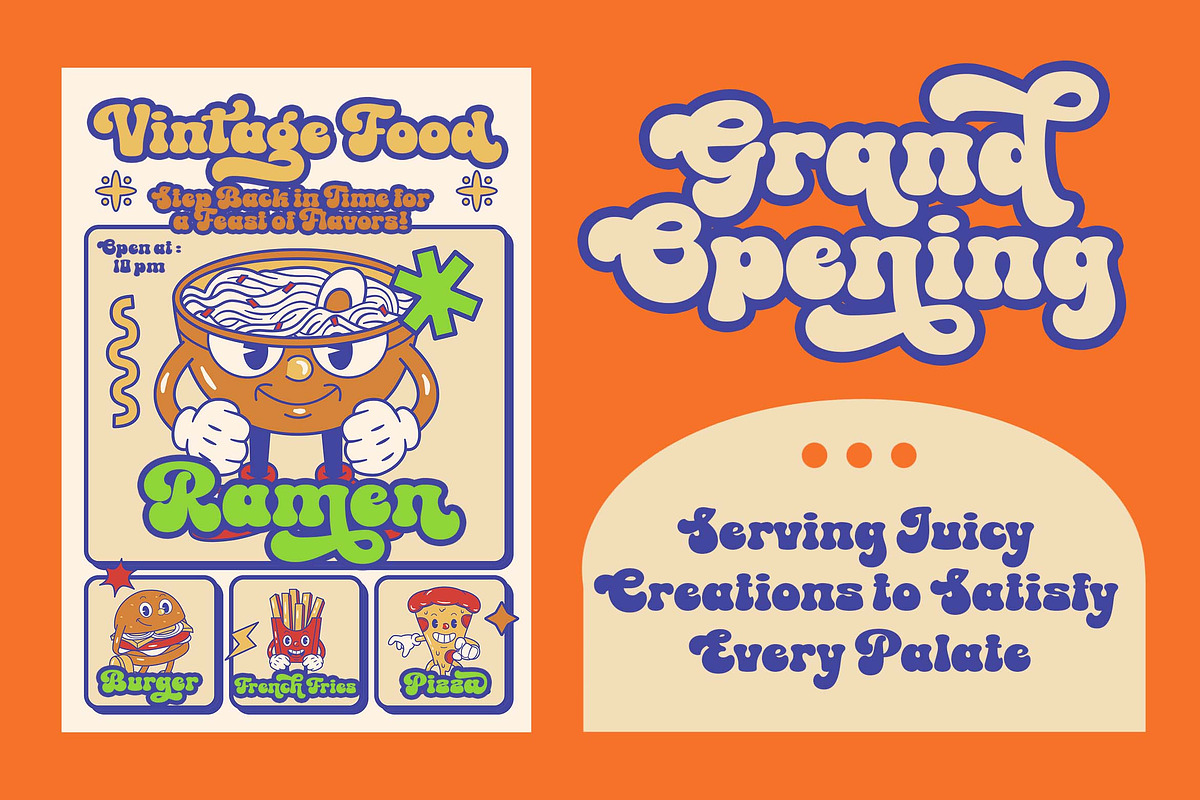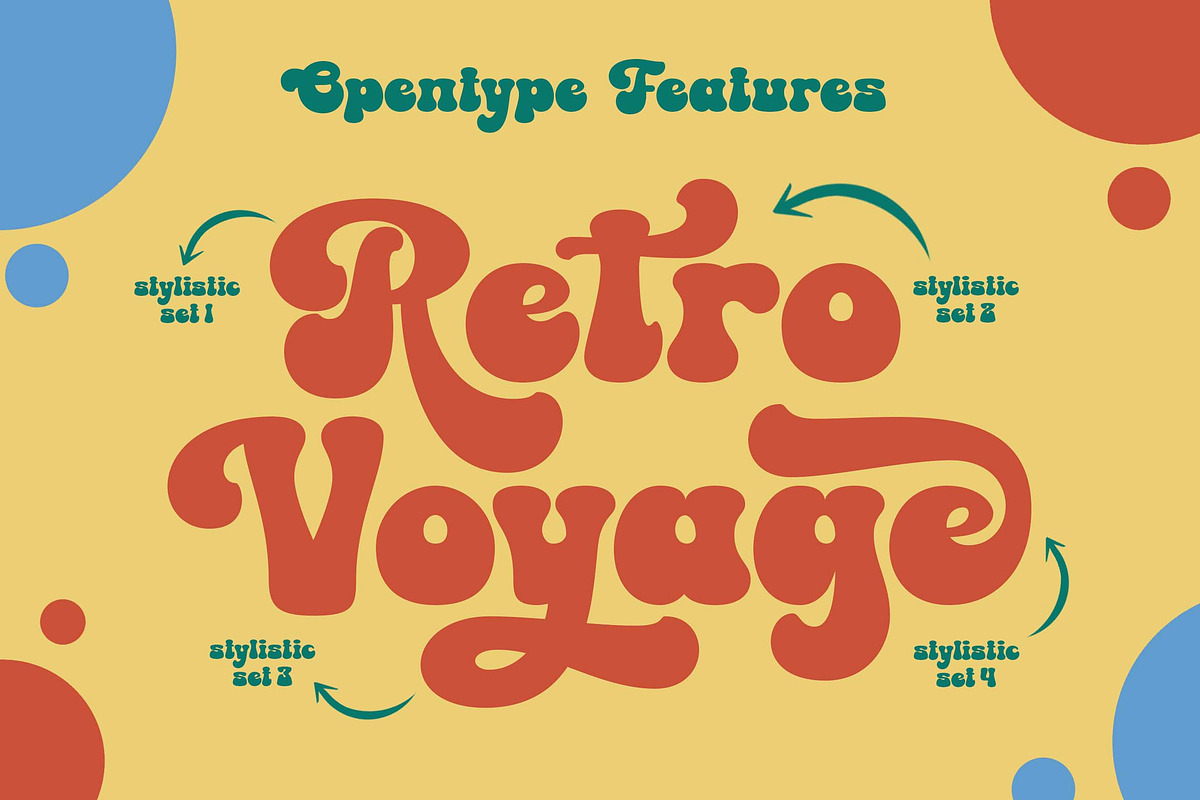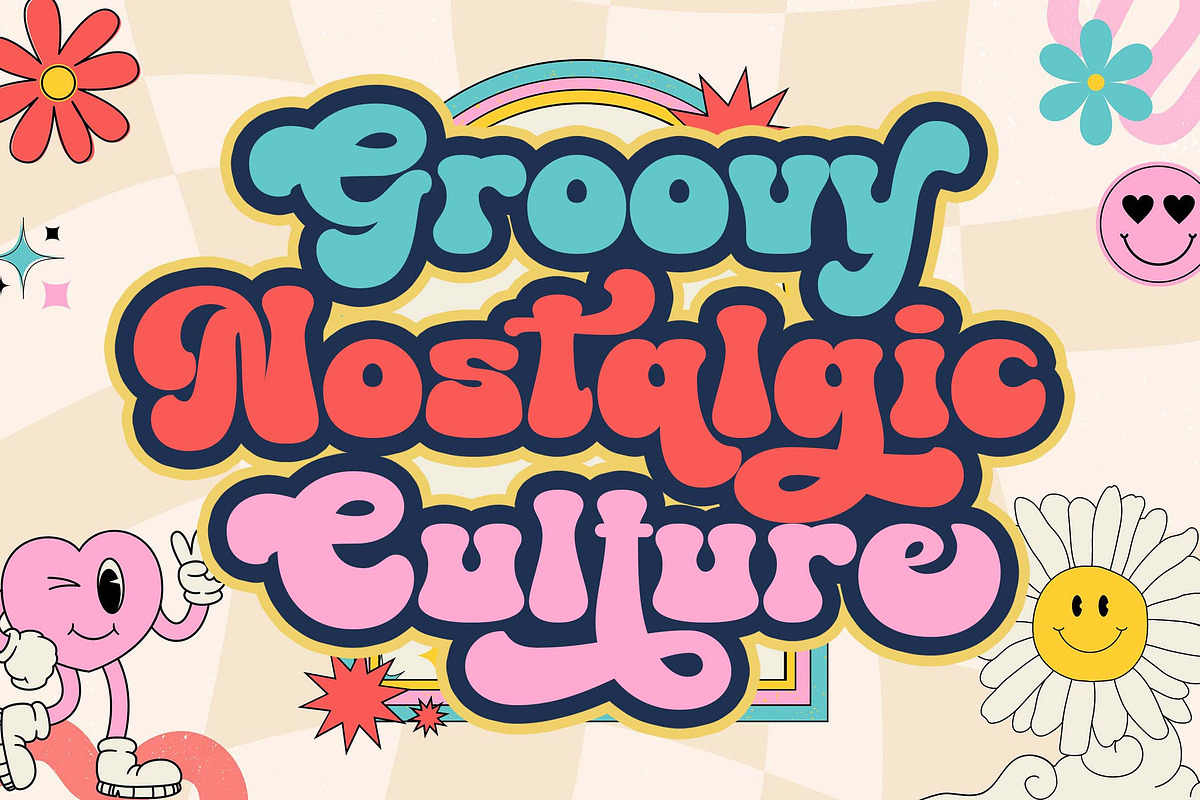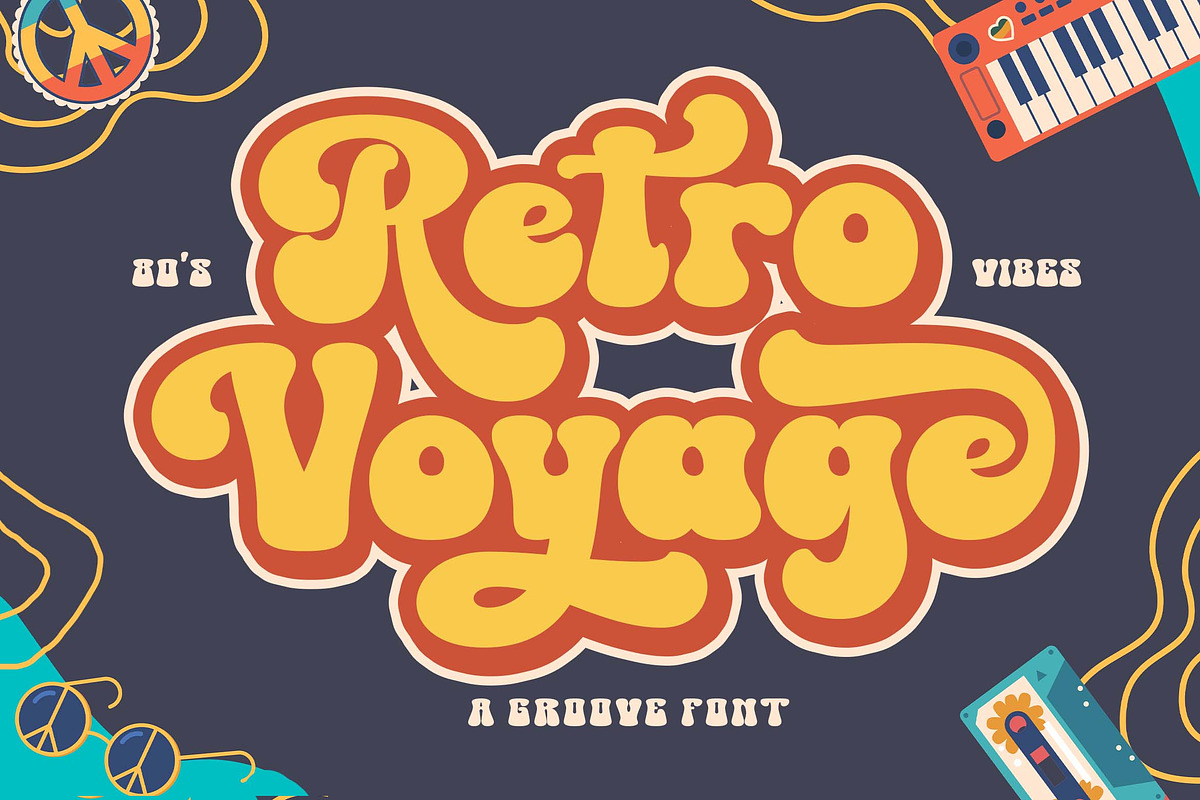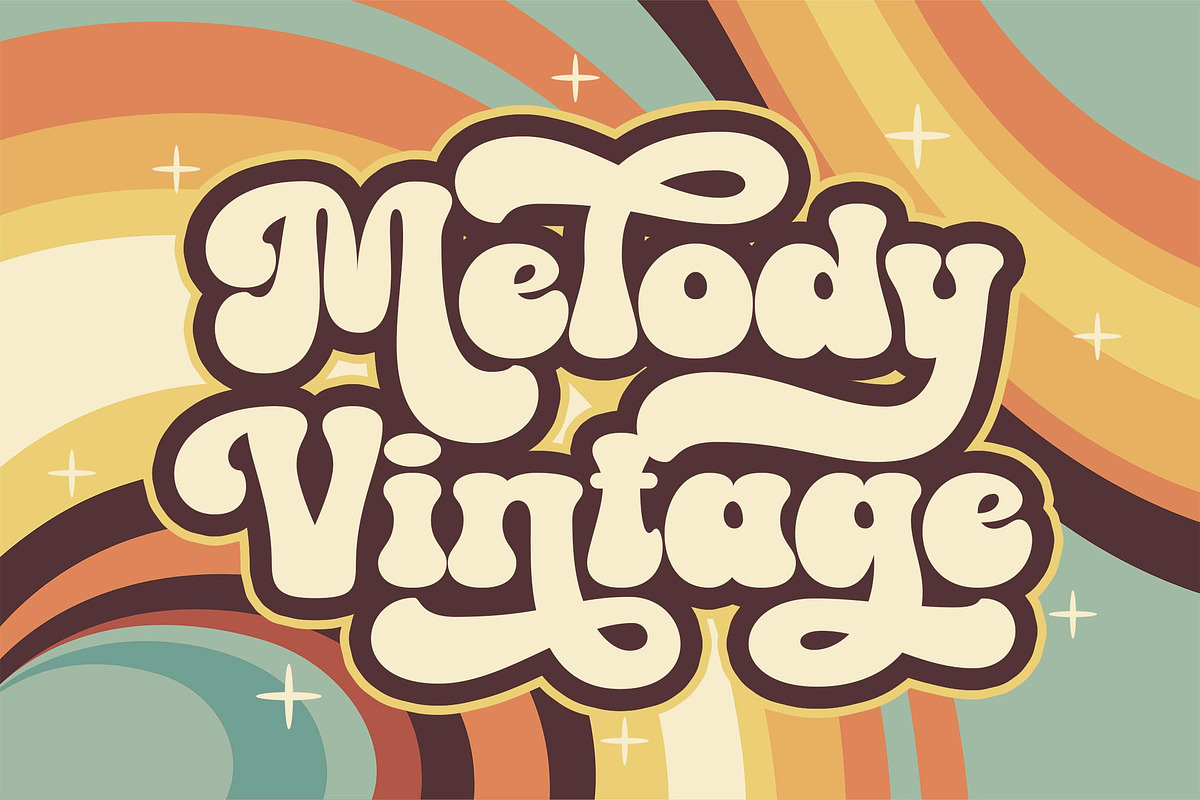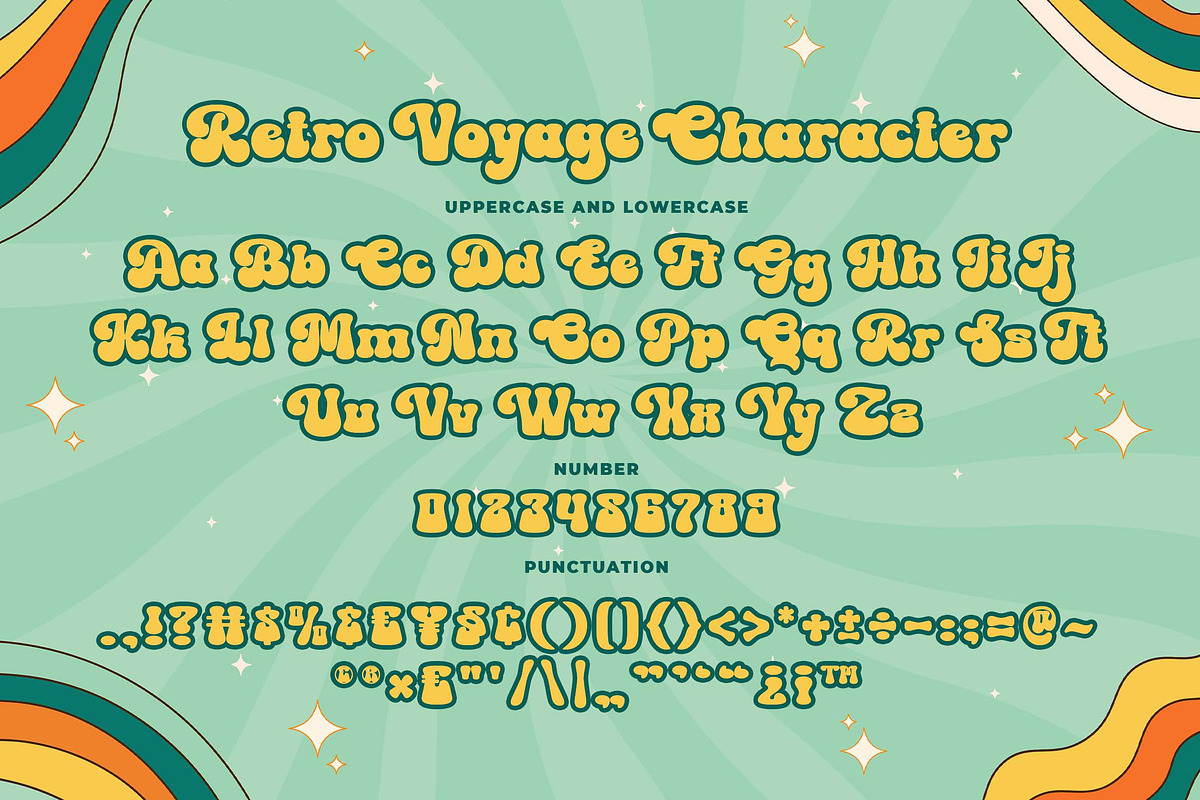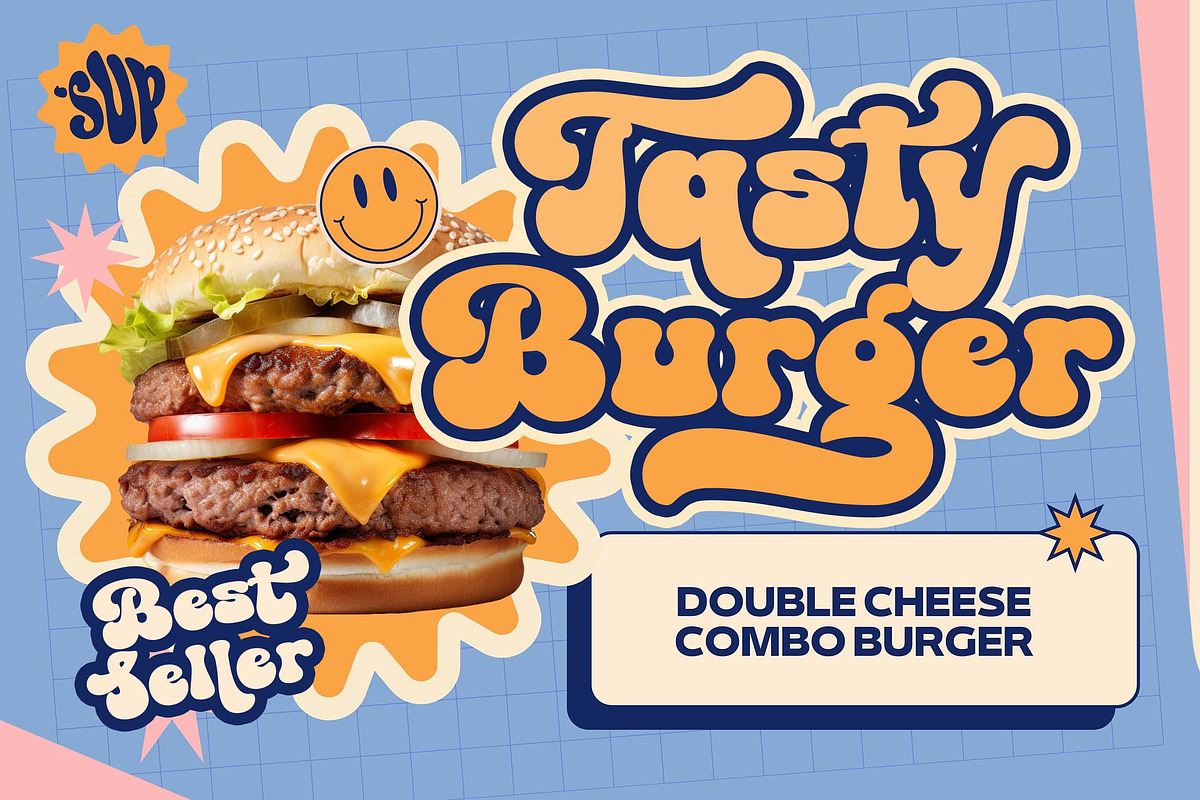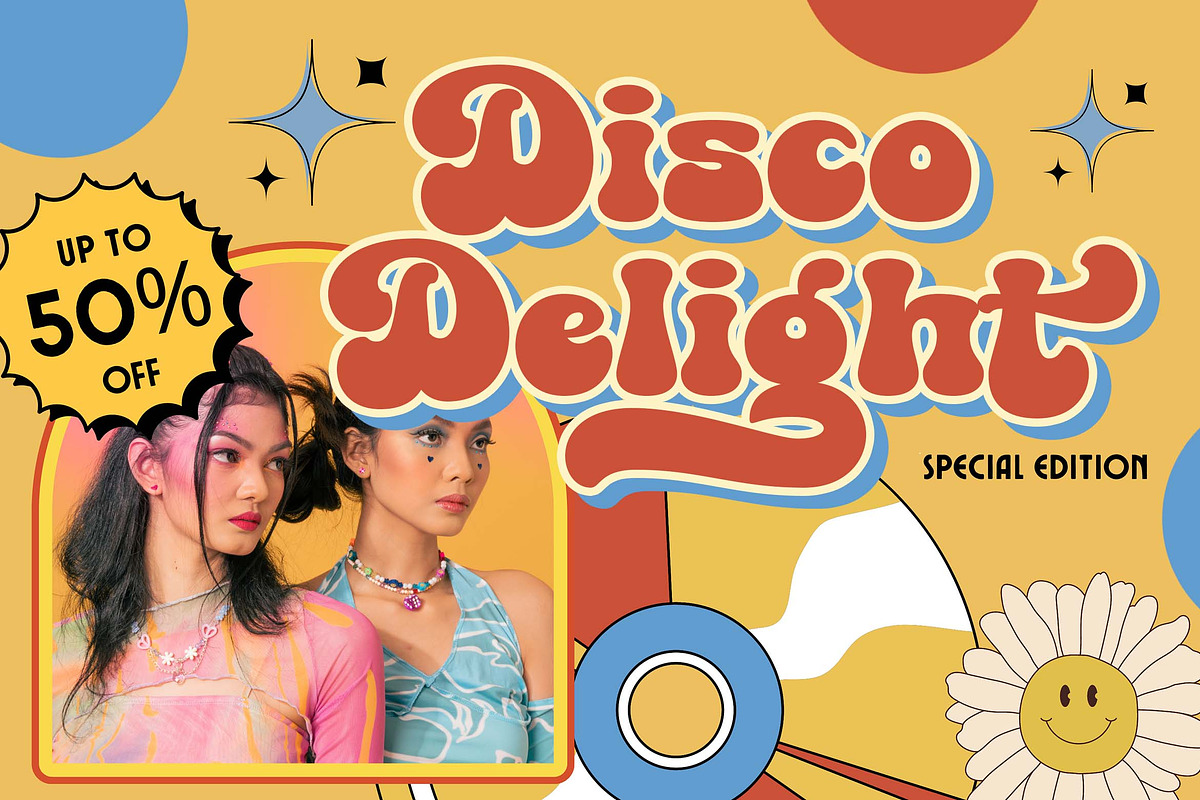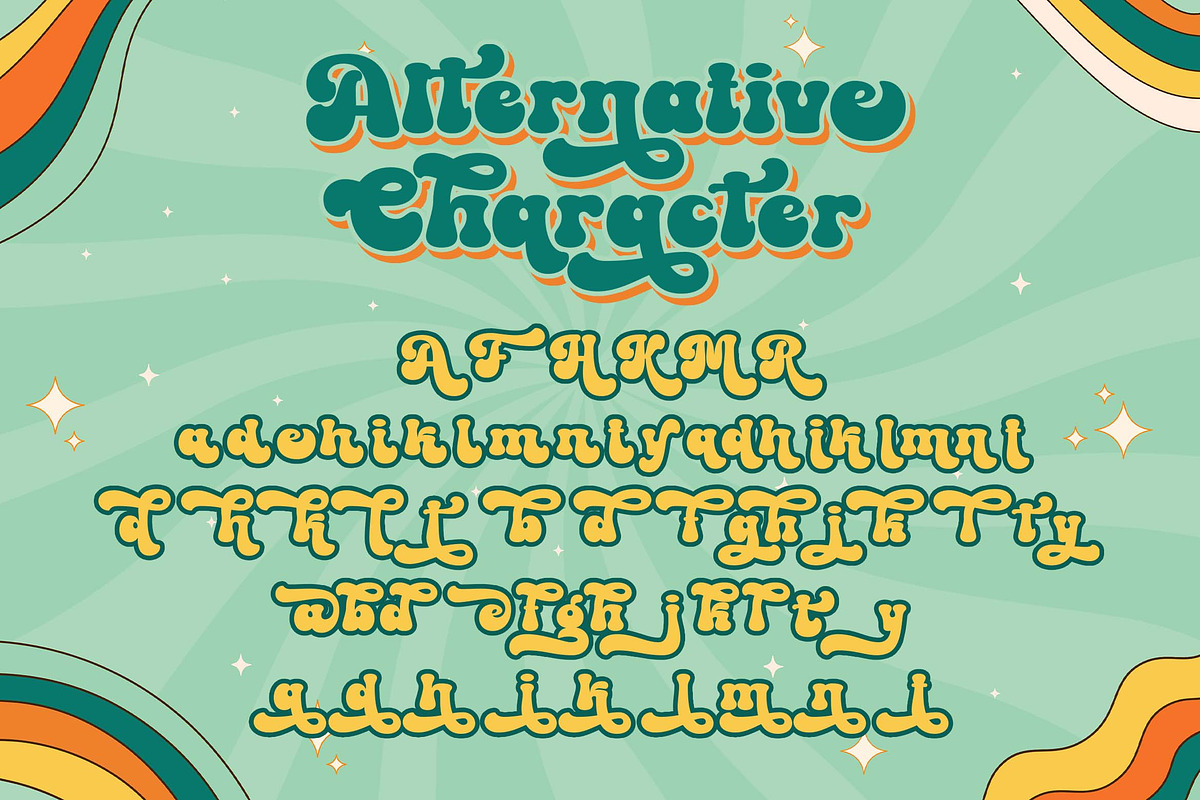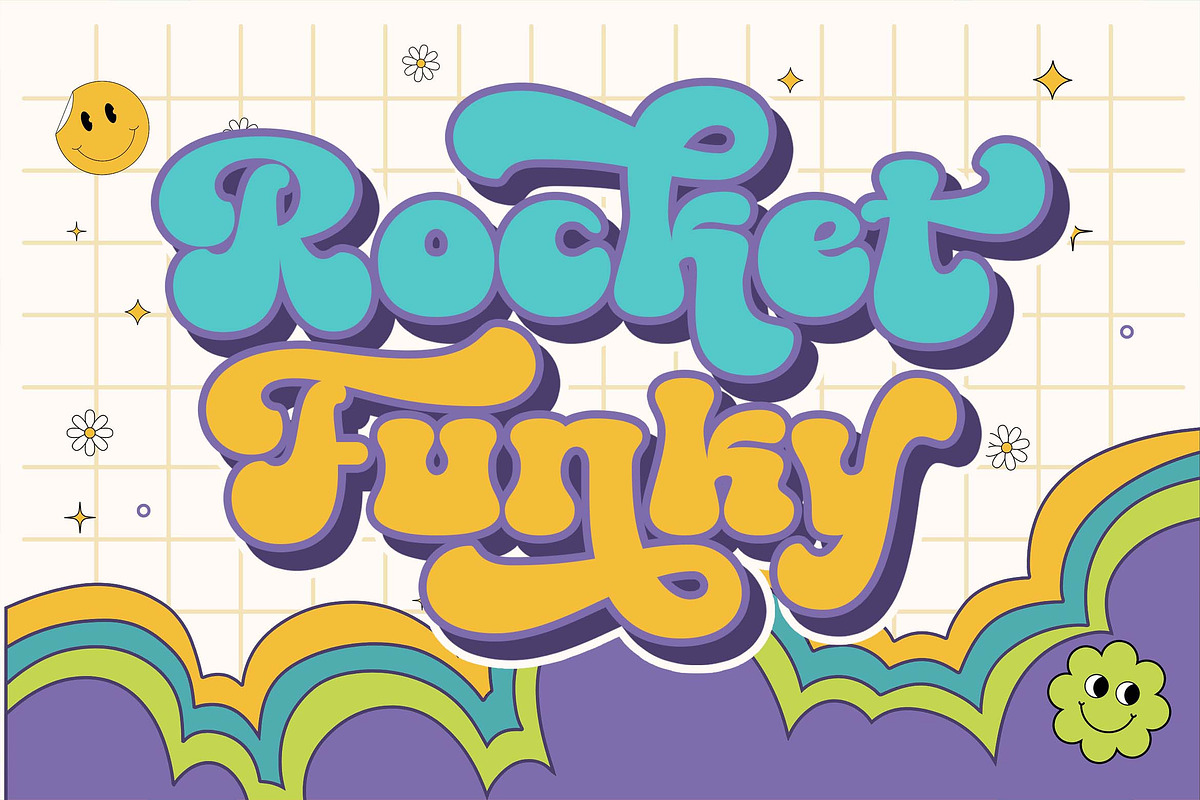
Retro Voyage a Groovy Font
Welcome to Retro Voyage – the epitome of vintage charm and groovy vibes! Transport yourself back to the golden eras of the 70s and 80s with this rounded serif font. Inspired by the iconic styles of yesteryears, Retro Voyage brings nostalgia to life in every curve and flourish.
Perfect for those seeking a retro flair for their branding, Retro Voyage is your passport to a bygone era. Whether it’s logos, packaging designs, advertisements, or corporate needs, this font adds a touch of retro sophistication to any project.
With its distinctive retro aesthetic and timeless appeal, Retro Voyage is more than just a font – it’s a journey through decades of style and creativity. Elevate your designs and captivate your audience with the charm of Retro Voyage today!